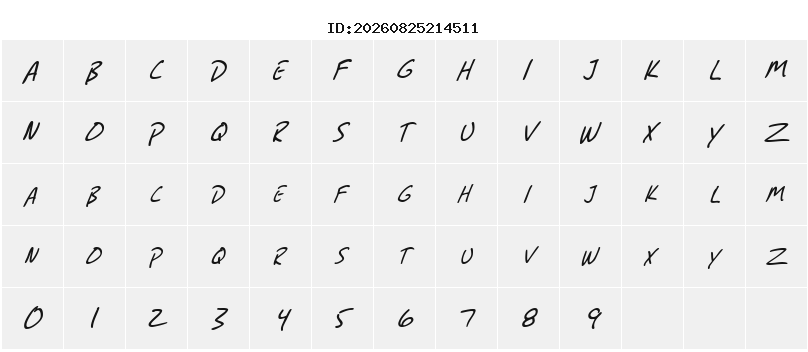
• Font Name: SF Grunge Sans SC
• Full Font Name: SF Grunge Sans SC Italic
About SF Grunge Sans SC.ttf
SF Grunge Sans SC.ttf is a modern, elegant sans-serif font designed for ultimate readability and visual harmony. Perfect for branding, headlines, web design, and print materials.